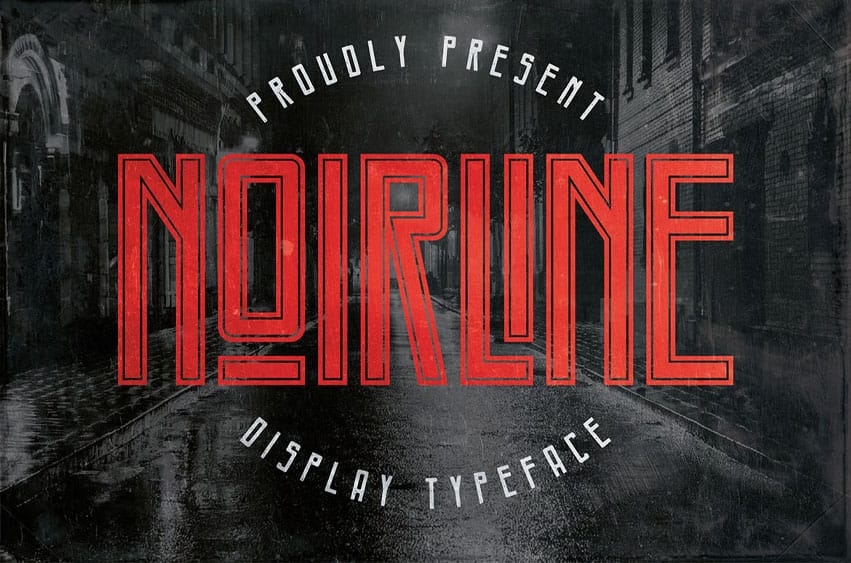
Noirline Font Unique, futuristic, condensed, sharp, simple & label sans serif font. Comes with multilingual support & a lot of ligatures and some alternate characters + inline & rough font versions – great for your new logo, monogram or branding project.
- 3 font versions – regular, inline & rough
- Multilingual support & a lot of ligatures and some alternates
- Great for your new logo, monogram, or branding project